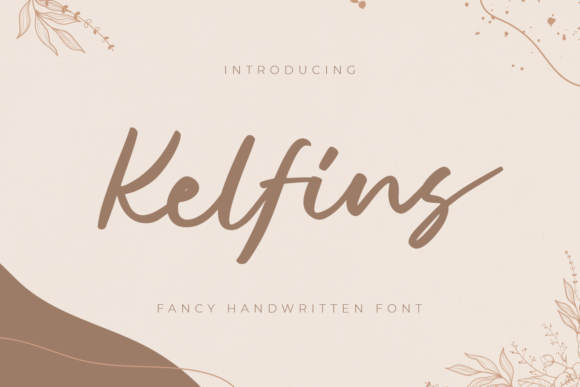
Kelfins Font: A Timeless Handwritten Font for Stunning Designs
In the world of typography, fonts play a crucial role in making or breaking a design. A well-chosen font can elevate your brand’s visual identity, making it more recognizable and memorable. If you’re on the hunt for a font that exudes elegance, sophistication, and a touch of whimsy, look no further than Kelfins Font. In this article, we’ll dive into the world of Kelfins, exploring its unique features, uses, and benefits.
What is Kelfins Font?
Kelfins Font is a lovely and timeless handwritten font that has captured the hearts of designers and typography enthusiasts alike. Its distinctive, cursive script is characterized by flowing lines, elegant strokes, and a touch of playfulness. Every letter in the Kelfins Font has a unique and beautiful touch, making it perfect for creating eye-catching logos, branding, and quotes.
Key Features of Kelfins Font
- Handwritten script: Kelfins Font boasts a beautiful, handwritten script that adds a personal touch to any design.
- Unique letterforms: Each letter in the Kelfins Font has a distinct character, making it perfect for creating custom logos and branding materials.
- Elegant strokes: The font features elegant strokes and flowing lines, giving it a sophisticated and refined look.
- Playful touch: Kelfins Font has a playful touch, making it ideal for designs that require a bit of whimsy and personality.
Uses of Kelfins Font
Kelfins Font is a versatile typeface that can be used in a variety of design projects. Here are some of the most popular uses of this stunning font:
Design Projects that Benefit from Kelfins Font
- Logo design: Kelfins Font is perfect for creating custom logos that require a personal touch.
- Branding materials: The font’s elegant strokes and unique letterforms make it ideal for creating branding materials, such as business cards, letterheads, and brochures.
- Quotes and typography: Kelfins Font is a great choice for creating stunning typography, including quotes, posters, and social media graphics.
- Wedding and event design: The font’s whimsical touch makes it perfect for wedding and event designs, such as invitations, programs, and signage.
Benefits of Using Kelfins Font
So, why choose Kelfins Font for your design projects? Here are some benefits of using this beautiful typeface:
Why Choose Kelfins Font?
- Unique and memorable: Kelfins Font’s distinctive script makes it perfect for creating unique and memorable designs.
- Elegant and sophisticated: The font’s elegant strokes and flowing lines give it a sophisticated and refined look.
- Versatile: Kelfins Font can be used in a variety of design projects, from logos and branding to quotes and typography.
- Easy to read: Despite its elegant and cursive script, Kelfins Font is easy to read, making it perfect for body text and captions.
Tips for Using Kelfins Font
To get the most out of Kelfins Font, here are some tips to keep in mind:
Getting the Most out of Kelfins Font
- Use it sparingly: Kelfins Font is a statement font, so use it sparingly to make a bigger impact.
- Pair it with a sans-serif font: Pairing Kelfins Font with a sans-serif font can create a beautiful contrast and add visual interest to your design.
- Experiment with colors: Kelfins Font looks great in a variety of colors, so don’t be afraid to experiment and find the perfect hue for your design.
- Pay attention to kerning: As with any font, pay attention to kerning to ensure that your text looks professional and polished.
Kelfins Font is a stunning, timeless handwritten font that can elevate your design projects to the next level. Its unique letterforms, elegant strokes, and playful touch make it perfect for creating eye-catching logos, branding, and quotes. With its versatility, ease of use, and range of benefits, Kelfins Font is a great choice for designers and typography enthusiasts alike. So why not give it a try and see how it can transform your designs?